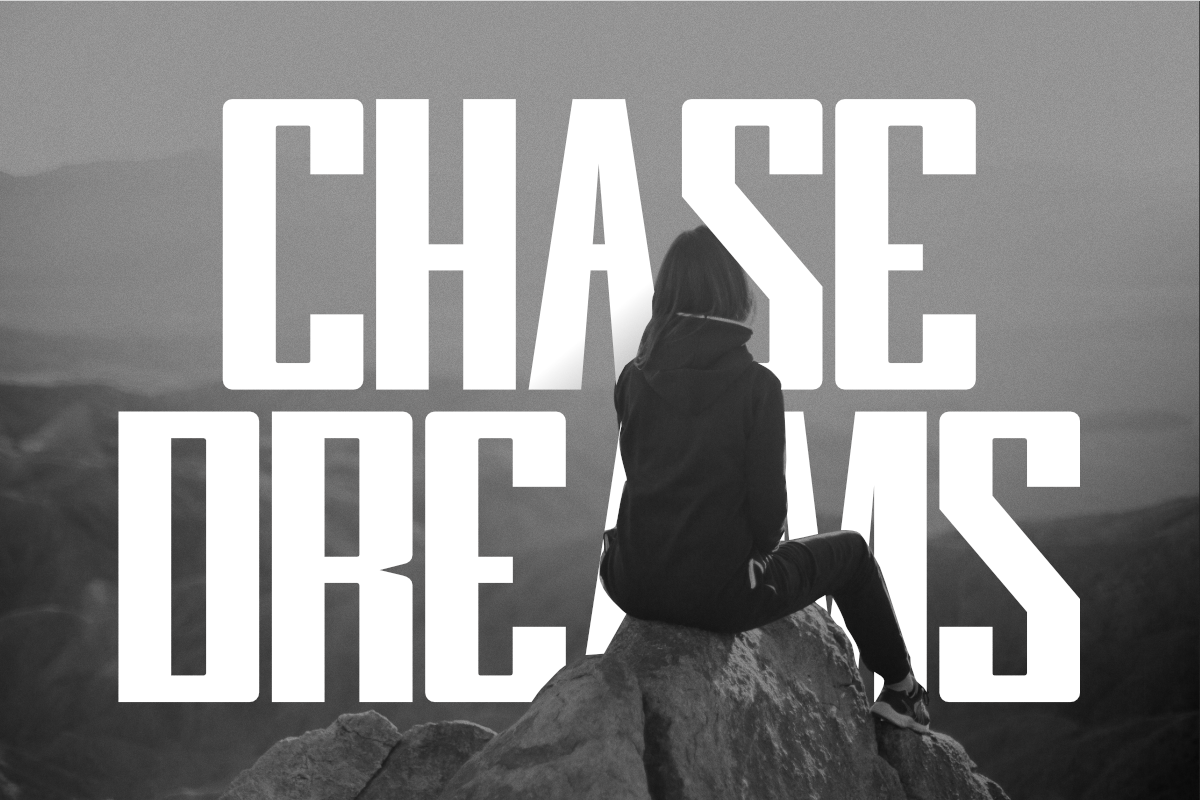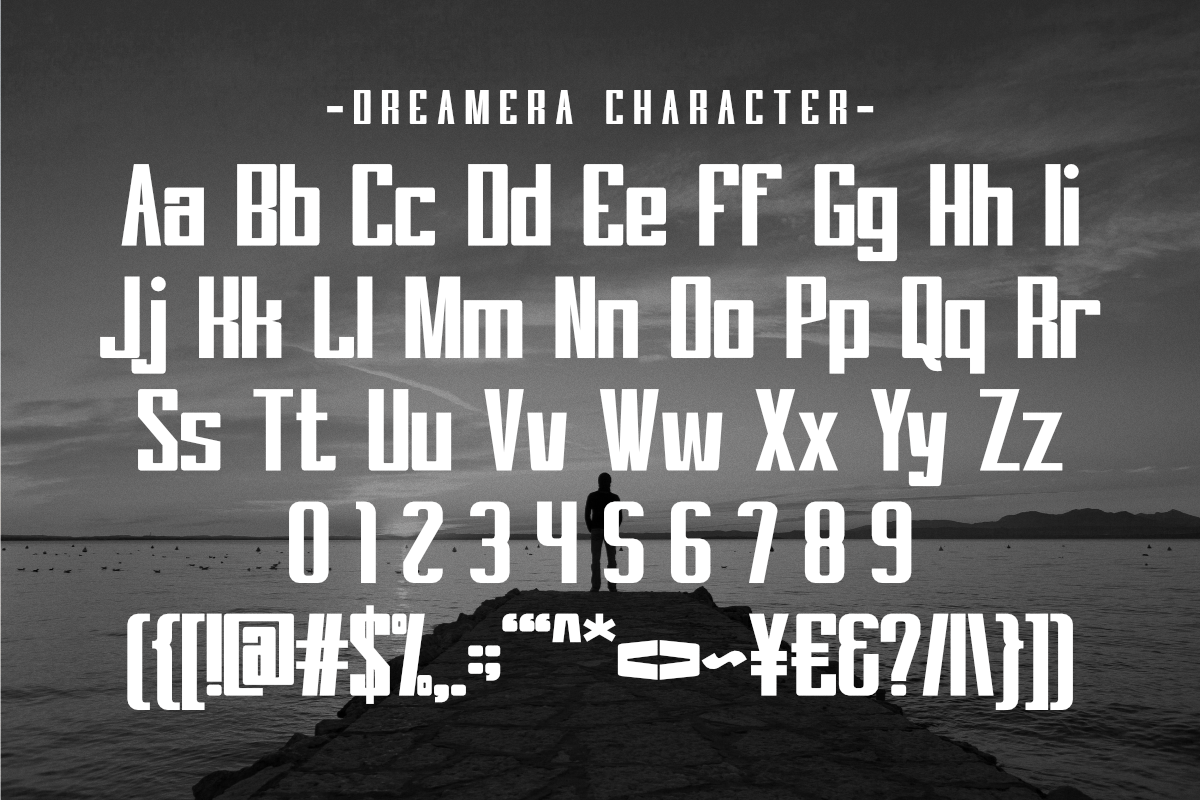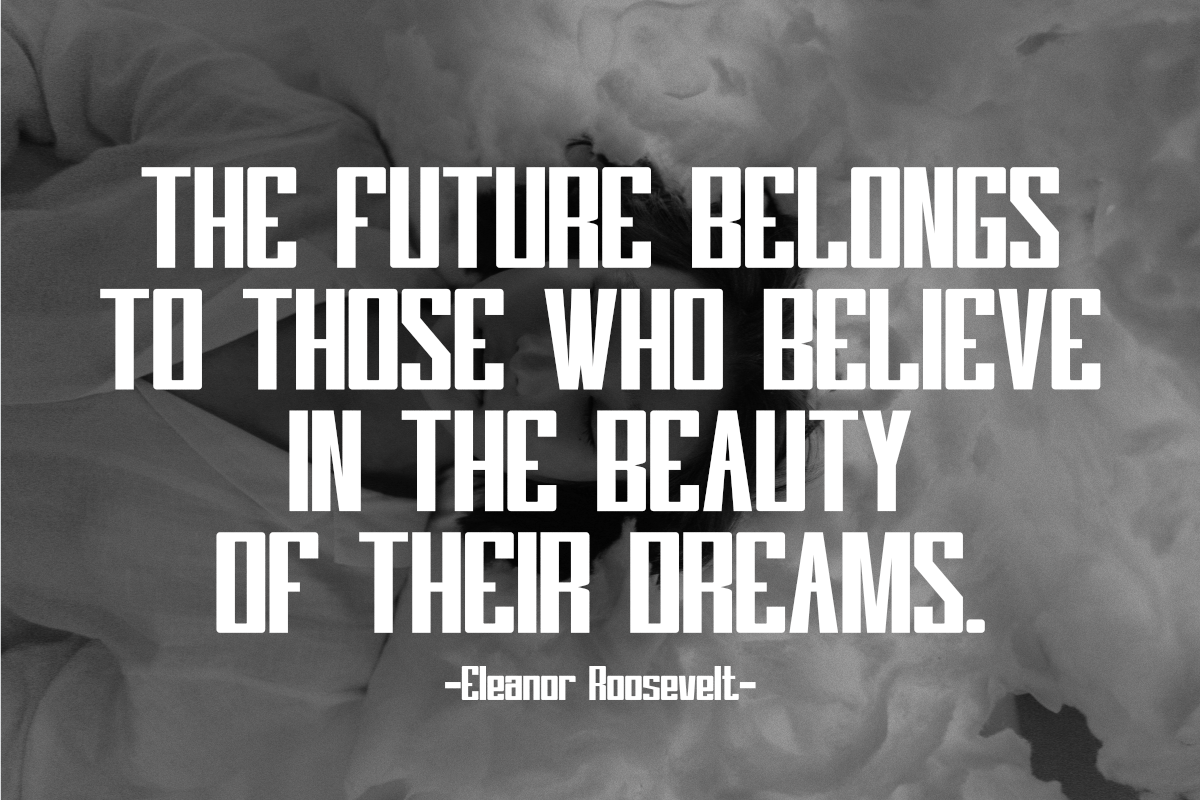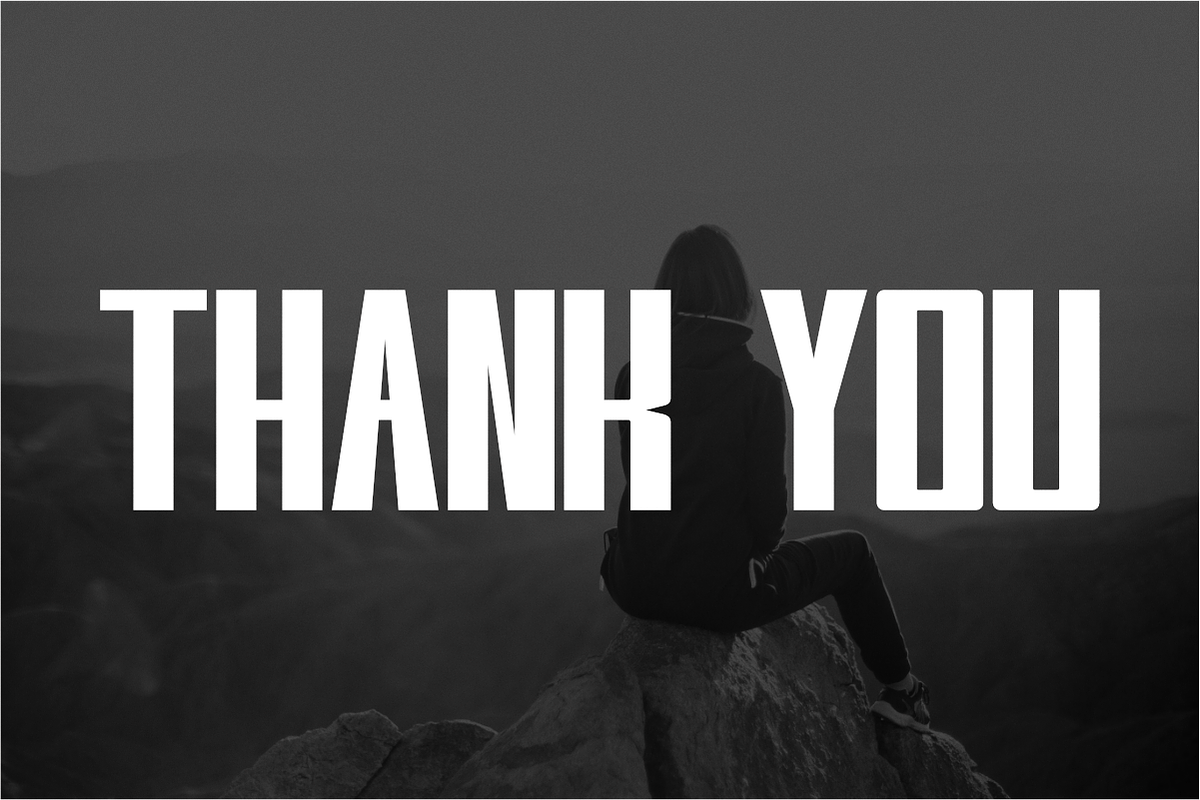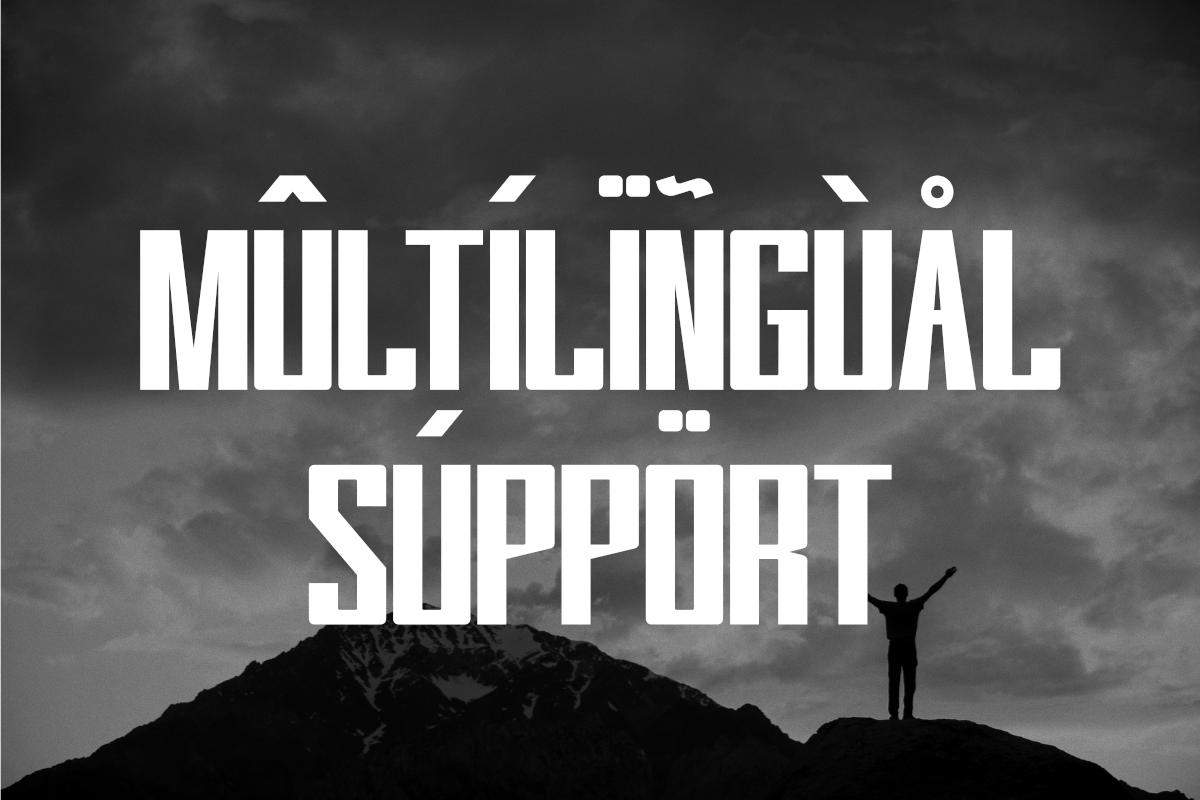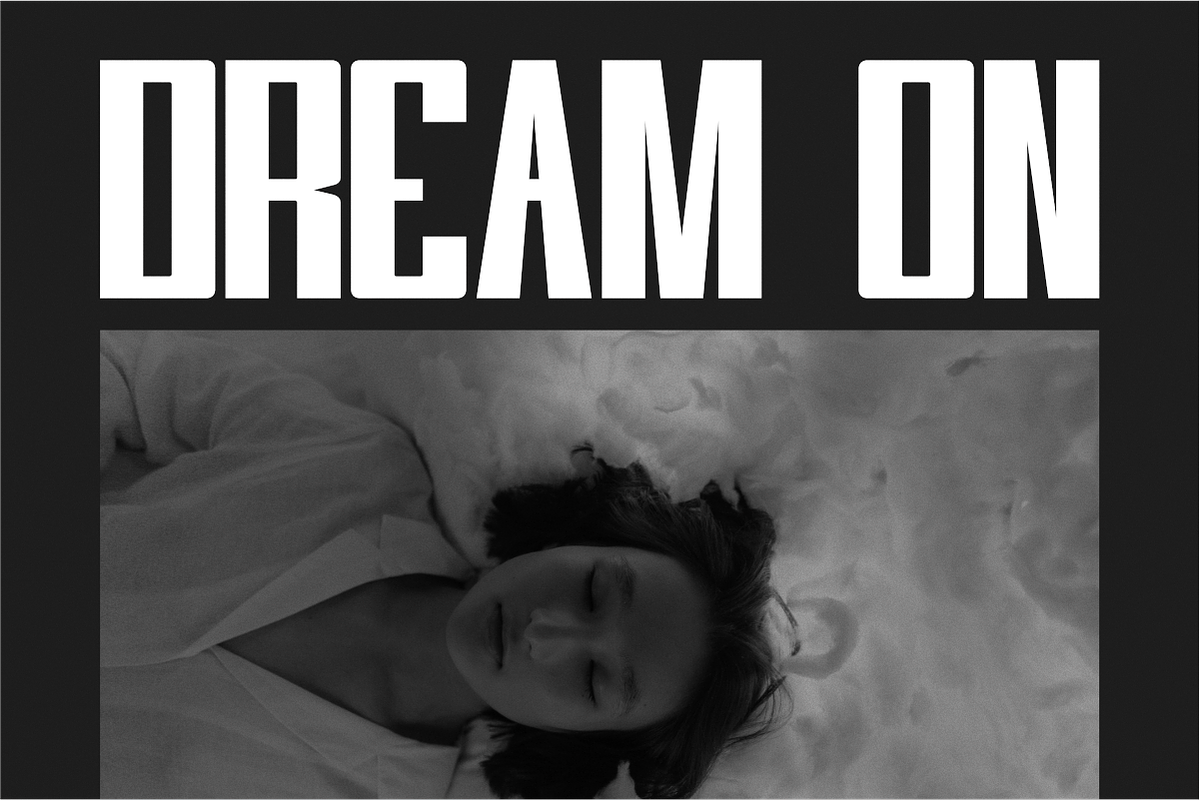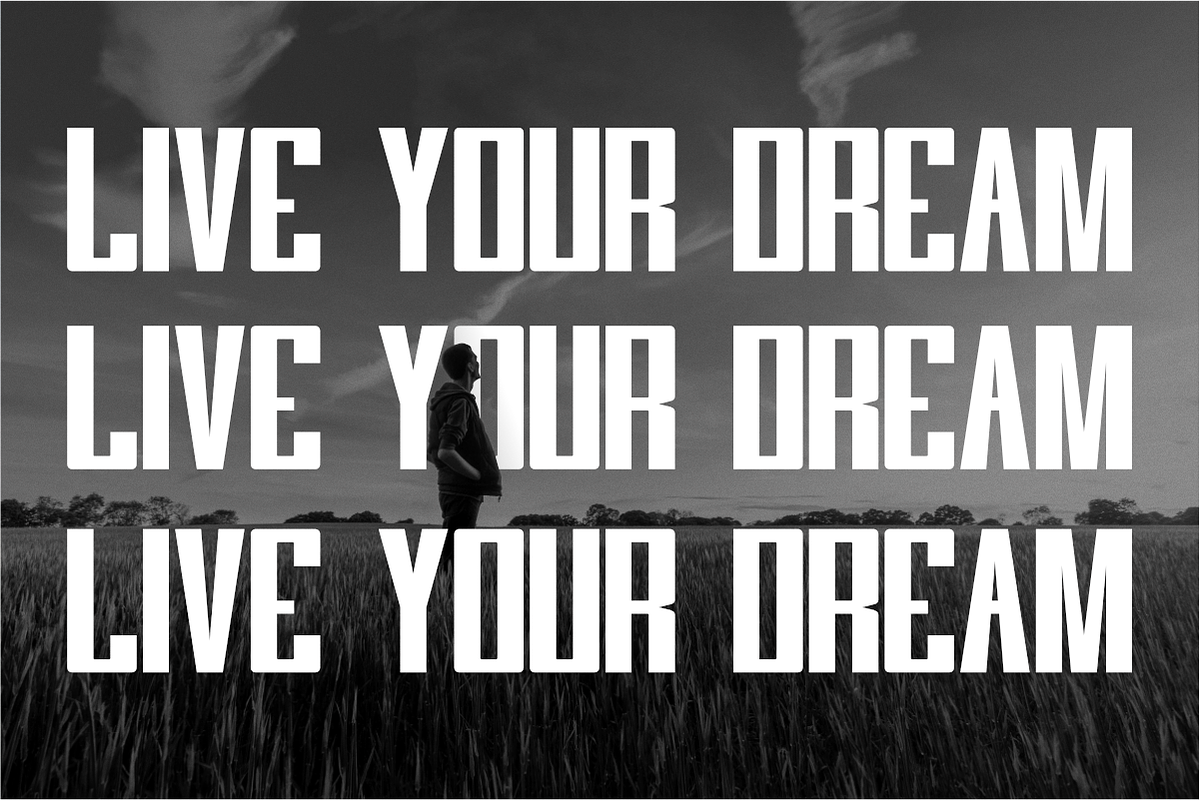
Dreamera - Modern Sans Serif
Dreamera is a modern and clean condensed sans serif font that offers a sleek and contemporary aesthetic. Its condensed proportions make it highly efficient for headlines and titles, allowing for impactful statements in limited space. Featuring clean lines and a minimalist style, this font adds a fresh, elegant touch to your creative projects. Ideal for crafting, branding, and more.